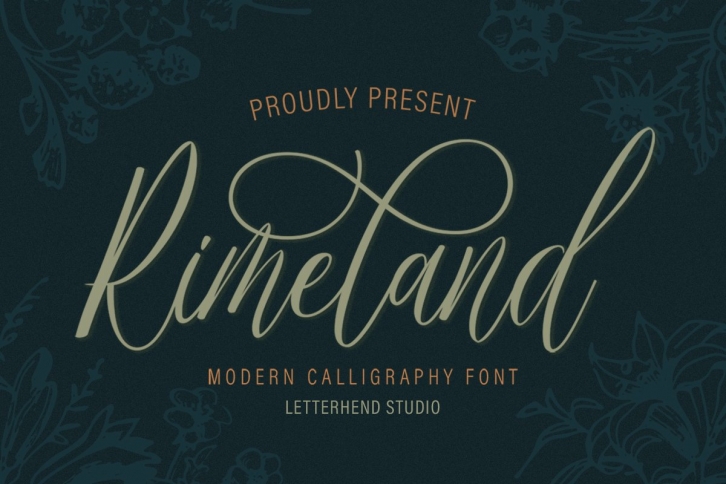
Rimeland is a great font that was designed by Letterhend. Imagine the amount of combinations you can create using this font! The archive is 8.93 MB and it was released on January 4, 2021. Rimeland looks beautiful on wedding invitations, greeting cards, logos, posters, labels, t-shirt designs, logos, business cards and is perfect for use in ink or watercolor works, fashion, magazines, packaging and food menus, children's books and more!